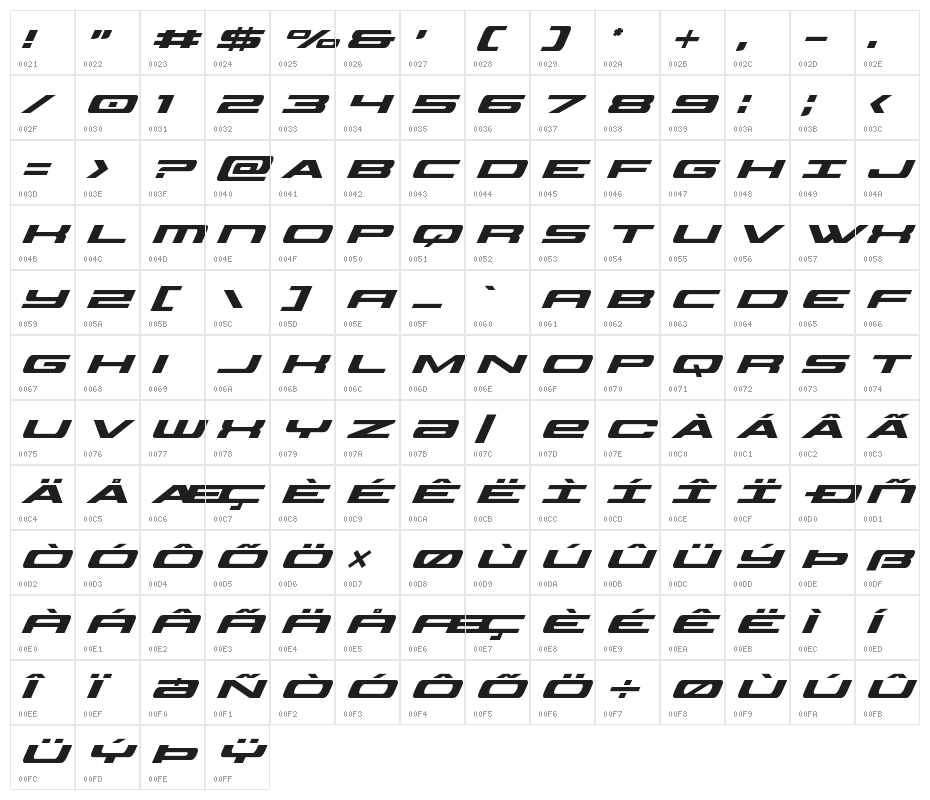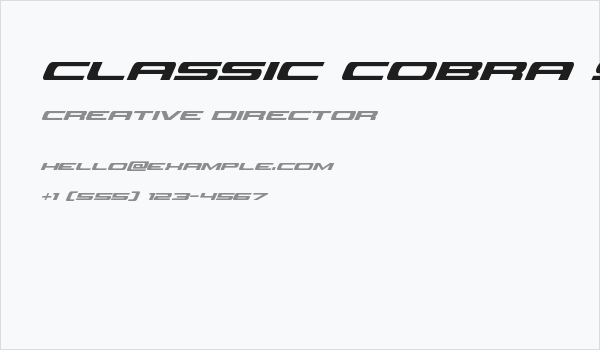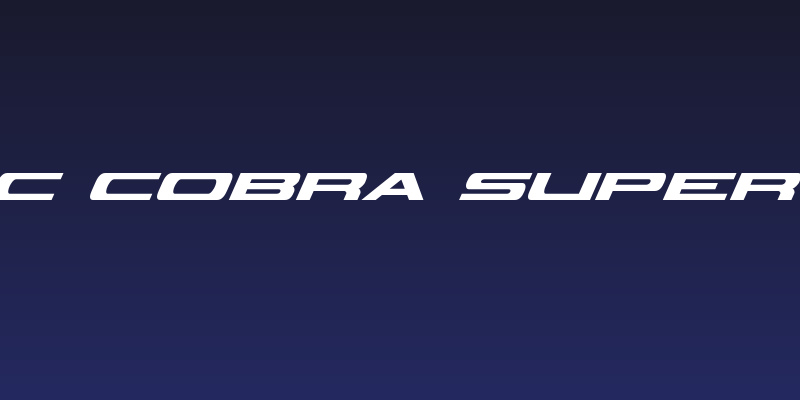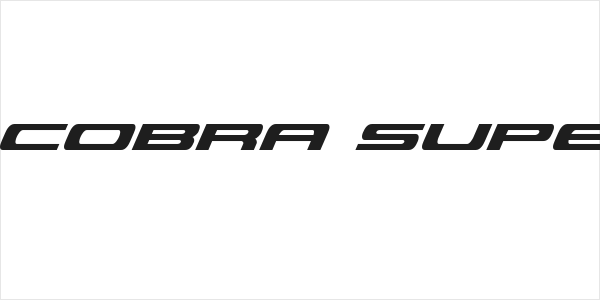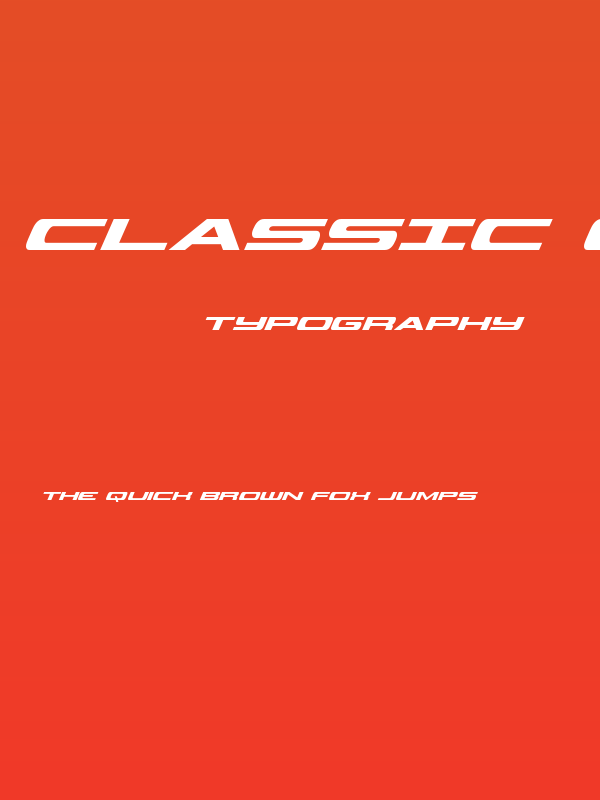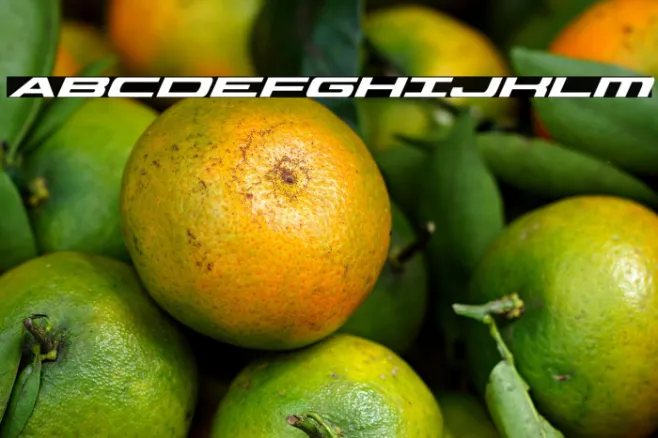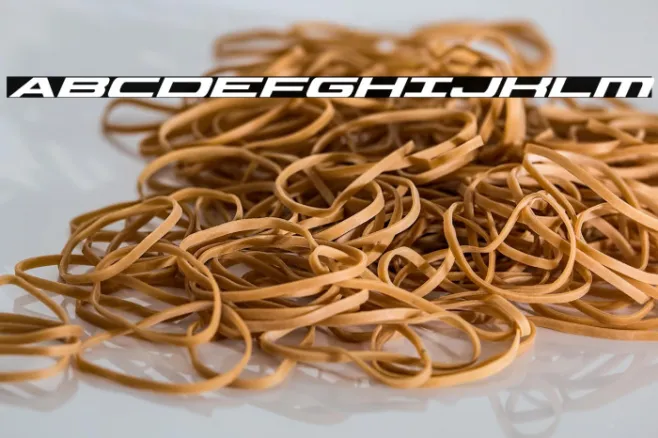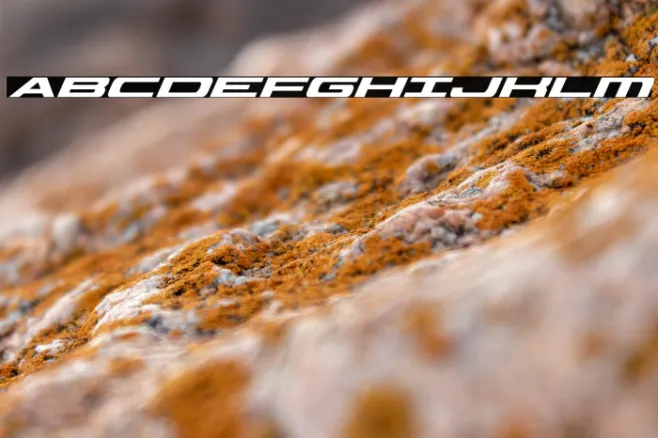
Classic Cobra Super-Italic Font
Classic Cobra Super-Italic Description
This font exhibits a sleek, italicized style with a modern and dynamic appearance. The characters are slightly slanted, giving a sense of motion and speed, which is enhanced by the sharp, angular edges. The uppercase and lowercase letters maintain a consistent design, with a uniform stroke width that provides a balanced look. The numerals and special characters follow the same design principles, ensuring cohesion across all elements. The overall aesthetic is bold and assertive, making it suitable for projects that require a strong visual impact.
| Overall Style | Modern, Dynamic |
| Proposed Projects | Ideal for automotive branding, sports team logos, dynamic posters, and modern web design. |